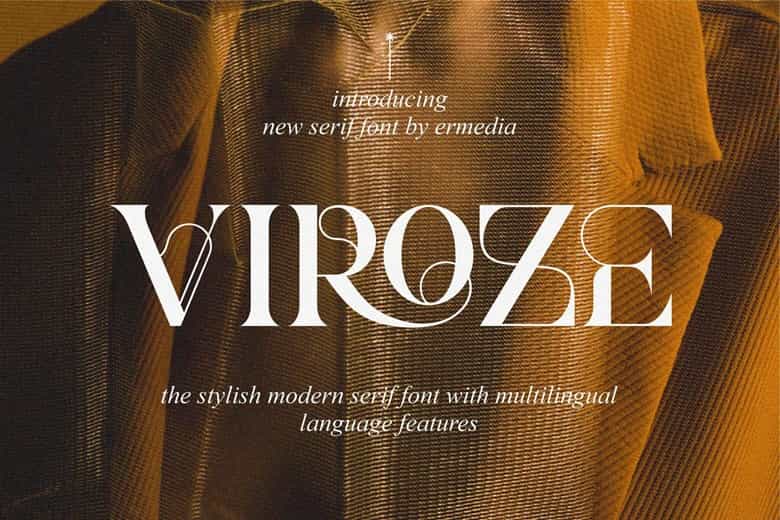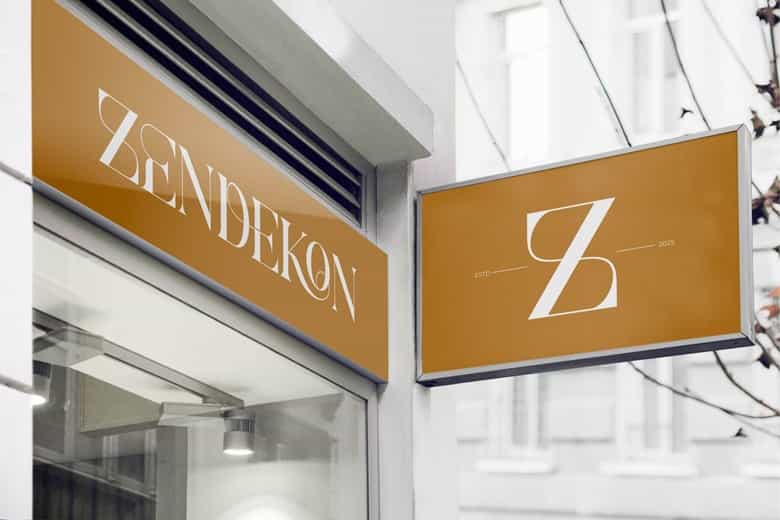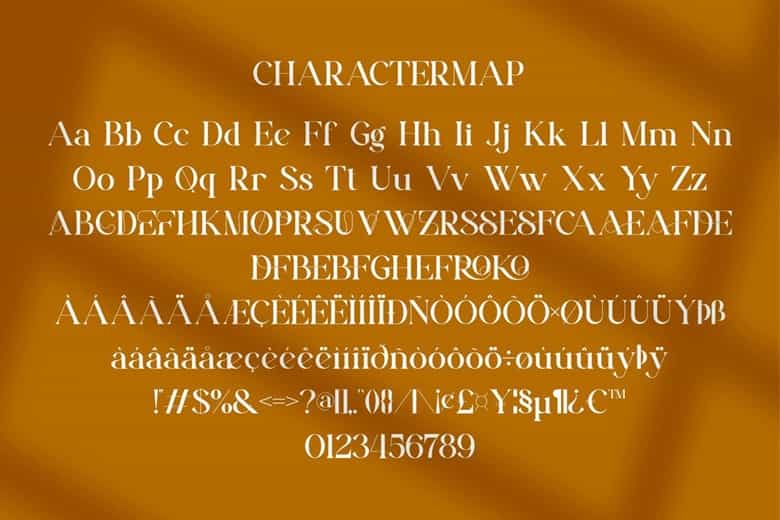
Viroze is an elegant and modern serif typeface for all branding and logo designs. This modern and classy Serif font has a beautiful character. This font is suitable for invitation card designs, cool logos, movie titles, movie names, business cards, book titles, brand names, and various other designs. Its stylish ligatures make this font a perfect partner for any project.